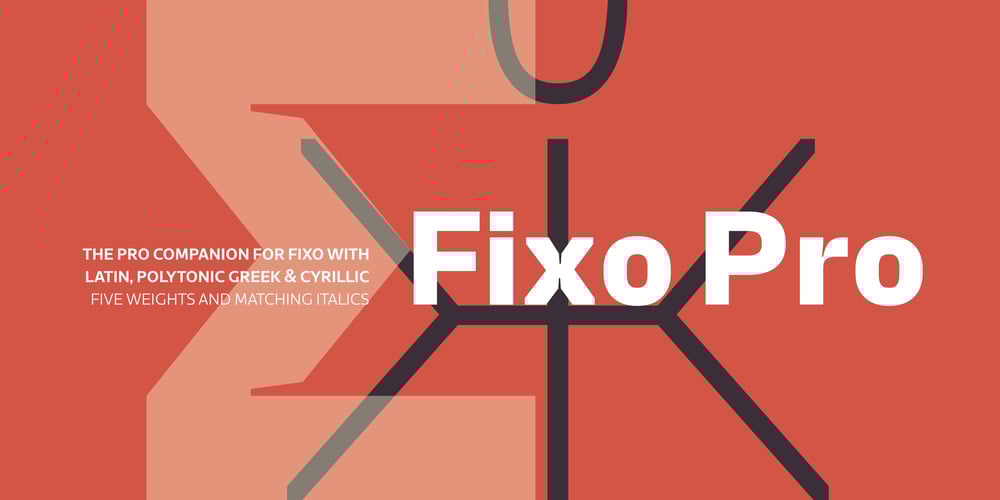
Fixo Pro
Fixo Pro font
Fixo Pro Font Family was designed by Dino dos Santos, Pedro Leal and published by DSType. Fixo Pro contains 14 styles and family package options. Fixo uses 150 unit intervals that help achieve an improved relationship between distinct widths inside the character set, lying among the idea of monospace and proportional typefaces. With a monospace flavor but with proportional rhythm, Fixo is a very mechanical typeface with almost no kerning (except for the most visible cases), exaggerated ink traps, and seven weights ranging from Thin to Heavy, all sharing the same metrics. No matter which weight you set your text in, it will never change its length or cause text to reflow. Fixo was designed for use in interface design, editorial and corporate projects.